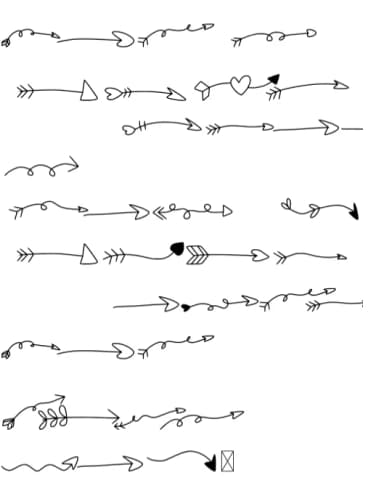
1 / 5About Heart Arrow Font
Heart Arrow by CraftedType Studio is a hand-drawn dingbat typeface built entirely from decorative arrows with heart-shaped heads. It's designed for projects where visual charm actually matters, where the directional elements themselves carry personality and warmth. Think Valentine's Day card suites, DIY wedding programs with decorative flourishes, custom gift tag sets, or the kind of greeting cards that look genuinely handmade instead of templated. The arrows have that sketched-by-hand quality that reads authentic without tipping into amateurish territory, which means they work equally well for digital mockups and finished print layouts.
The real power of a dingbat set like this is how much practical work it can save. These aren't just decoration; they solve a genuine design problem when you need directional marks that feel more alive than standard arrows. Use them for scrapbooking layouts, on Etsy product packaging and labels, in handwritten-style branding systems, or as decorative accents in DIY craft signage and wood signs. You can layer them, reverse their direction, and shift their color to match whatever emotional tone your project calls for. If you're looking for arrows that don't feel generic or corporate, grab Heart Arrow on Creative Fabrica and see how it lifts your next piece.
Heart Arrow Font is a versatile dingbats font that works for both headings and body text. Pair it with a contrasting sans-serif or serif font to add visual interest and a clear distinction between titles and body copy.